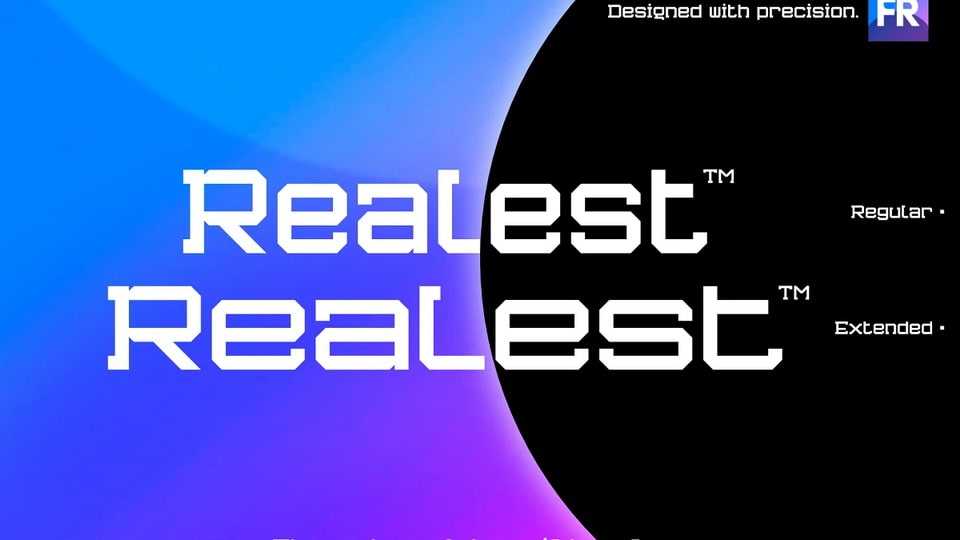
Realest™ Extended Font › Fontesk
Download Realest™ font, a modern slab serif typeface designed with mathematical precision. Realest™ typeface is crafted with consistent angles and measurements down to the smallest detail.